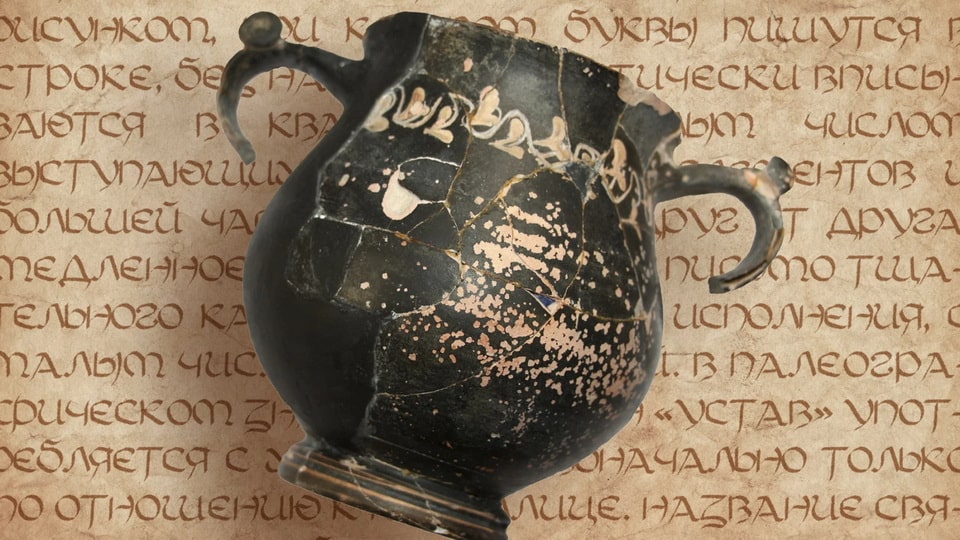
Download Tana Uncial SP font, an uncial typeface that pays homage to the classical beauty of historical manuscripts. Each character is meticulously crafted, drawing inspiration from the uncial scripts of ancient times.
Designer: Sasha Pavljenko